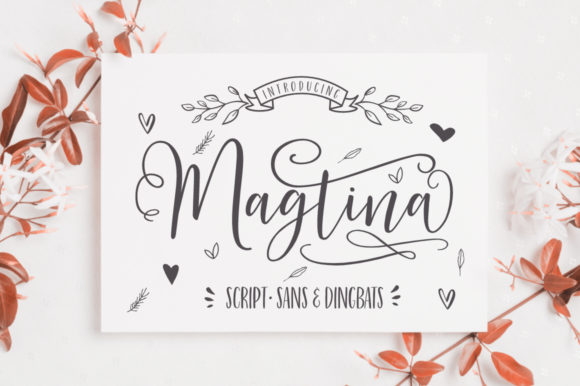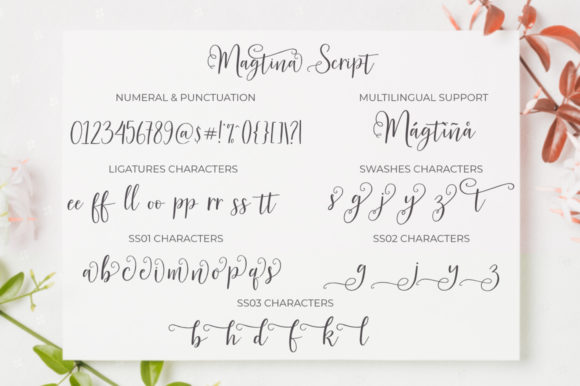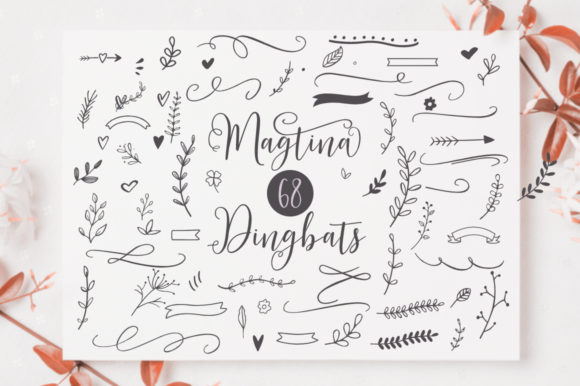
About Magtina Font
Magtina is a cute duo font with an incredibly friendly feel. It features a gorgeous script style with a beautiful sans serif. Whether you’re looking for fonts for Instagram or calligraphy scripts for DIY projects, Magtina will turn any creative idea into a true piece of art!